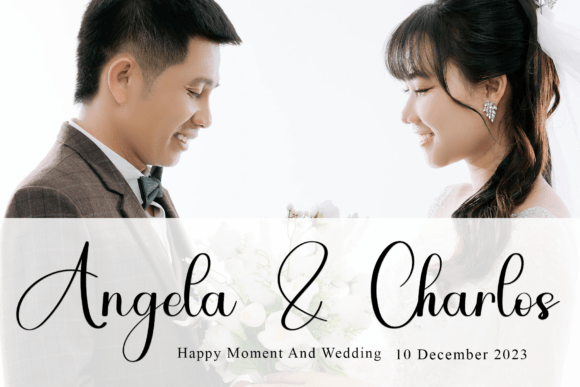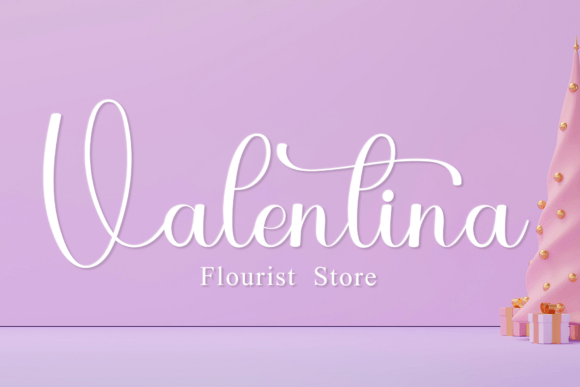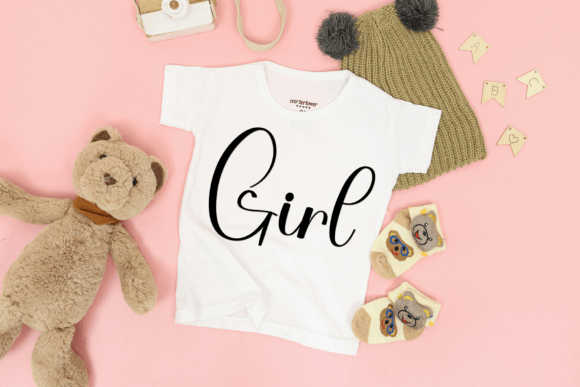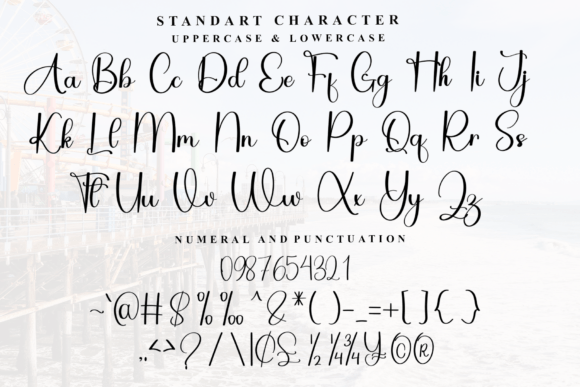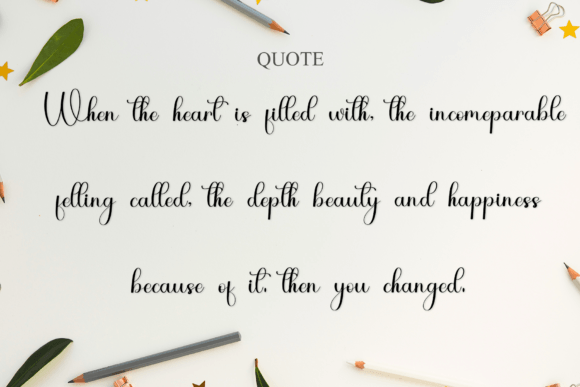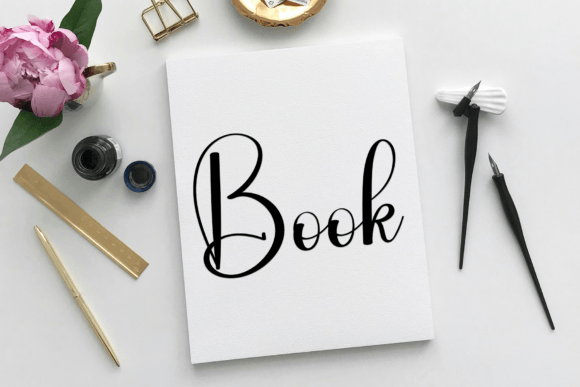
Austin Handmade Font: Add a Touch of Holiday Cheer to Your Designs
The holiday season is upon us, and what better way to get into the spirit than with a festive and happy typeface? Look no further than the Austin Handmade Font, a decorative font that’s perfect for adding a touch of charm to your designs. In this article, we’ll dive into the details of this delightful font and explore how it can elevate your holiday-themed projects.
What is Austin Handmade Font?
Austin Handmade is a unique and festive typeface that’s designed to capture the spirit of the holiday season. With its decorative elements and distinctive flair, this font is sure to add a cheerful and nostalgic atmosphere to your words. Whether you’re creating greeting cards, gift labels, or holiday-themed projects, Austin Handmade is the perfect choice.
Key Features of Austin Handmade Font
So, what makes Austin Handmade Font so special? Here are just a few of its key features:
• Decorative elements: Austin Handmade Font features a range of decorative elements, including intricate swashes and flourishes, that add a touch of elegance and sophistication to your designs.
• Unique flair: This font has a distinctive, handmade feel that’s perfect for creating holiday-themed projects that stand out from the crowd.
• PUA coded: Austin Handmade Font is PUA (Private Use Area) coded, which means you can access all the amazing glyphs and ligatures easily. This makes it simple to create beautiful, professional-looking designs.
Austin Handmade Font is specifically designed with the holiday season in mind. Its festive and cheerful vibe makes it perfect for a range of holiday-themed projects, including:
• Greeting cards: Create beautiful, one-of-a-kind greeting cards that will make your loved ones feel special.
• Gift labels: Add a touch of elegance and sophistication to your gift labels with Austin Handmade Font.
• Holiday-themed projects: From invitations to party decorations, Austin Handmade Font is the perfect choice for any holiday-themed project.
Why Choose Austin Handmade Font?
With so many fonts to choose from, why should you choose Austin Handmade Font? Here are just a few reasons:
• Unique and distinctive: Austin Handmade Font is a truly unique and distinctive typeface that’s sure to make your designs stand out from the crowd.
• Easy to use: With its PUA coding, Austin Handmade Font is easy to use, even for designers who are new to working with decorative fonts.
• High-quality design: Austin Handmade Font is designed to the highest standards, ensuring that your designs look professional and polished.
Tips for Using Austin Handmade Font
Here are a few tips for getting the most out of Austin Handmade Font:
• Experiment with different sizes: Austin Handmade Font looks great in a range of sizes, from small and delicate to large and bold.
• Play with color: This font looks great in a range of colors, from traditional holiday colors like red and green to more modern and bold color schemes.
• Combine with other fonts: Austin Handmade Font pairs beautifully with other fonts, so don’t be afraid to experiment with different combinations.
Austin Handmade Font is a truly special typeface that’s perfect for adding a touch of holiday cheer to your designs. With its decorative elements, unique flair, and PUA coding, this font is sure to make your holiday-themed projects stand out from the crowd. Whether you’re a designer, crafter, or DIY enthusiast, Austin Handmade Font is a must-have for the holiday season.